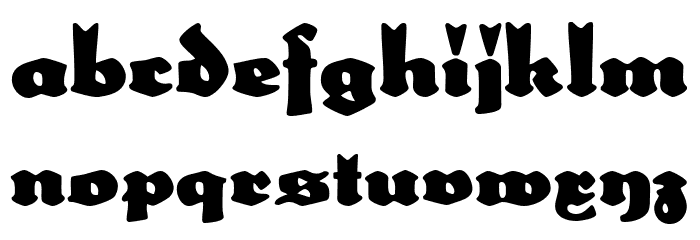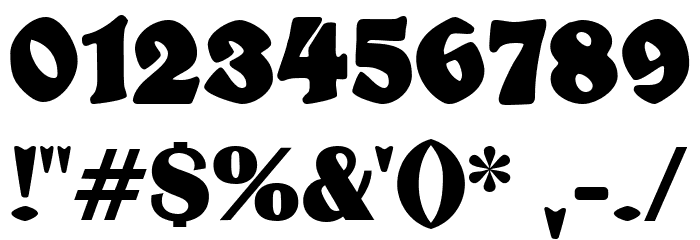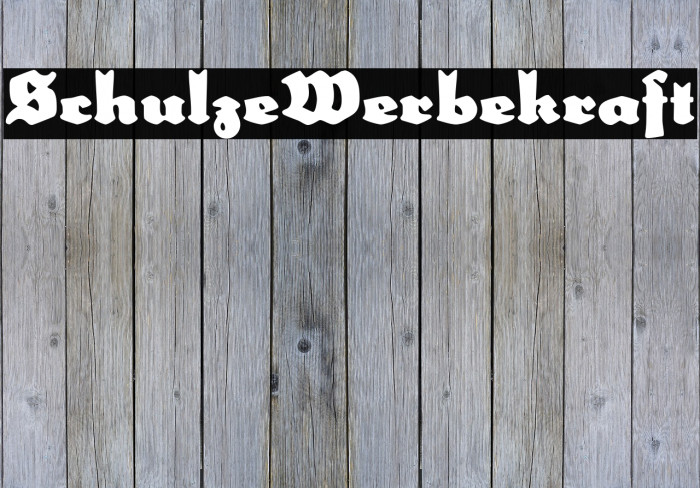
SchulzeWerbekraft Font
This font features a bold and dramatic style, reminiscent of traditional Blackletter typefaces. The characters are ornate, with sharp angles and intricate details that evoke a sense of historical elegance. The uppercase letters are particularly striking, with strong vertical lines and decorative flourishes. The lowercase letters maintain the same level of detail, ensuring consistency throughout the typeface. Numbers and special characters are equally bold, making them stand out effectively. This font is ideal for projects that require a touch of classic sophistication and a bold visual impact.
A bold, dramatic Blackletter-style font with intricate details.
- Proposed Projects: Ideal for historical themed designs, book covers, posters, and branding that requires a classic and bold appearance.
- Category: Blackletter
- Overall Style: Vintage